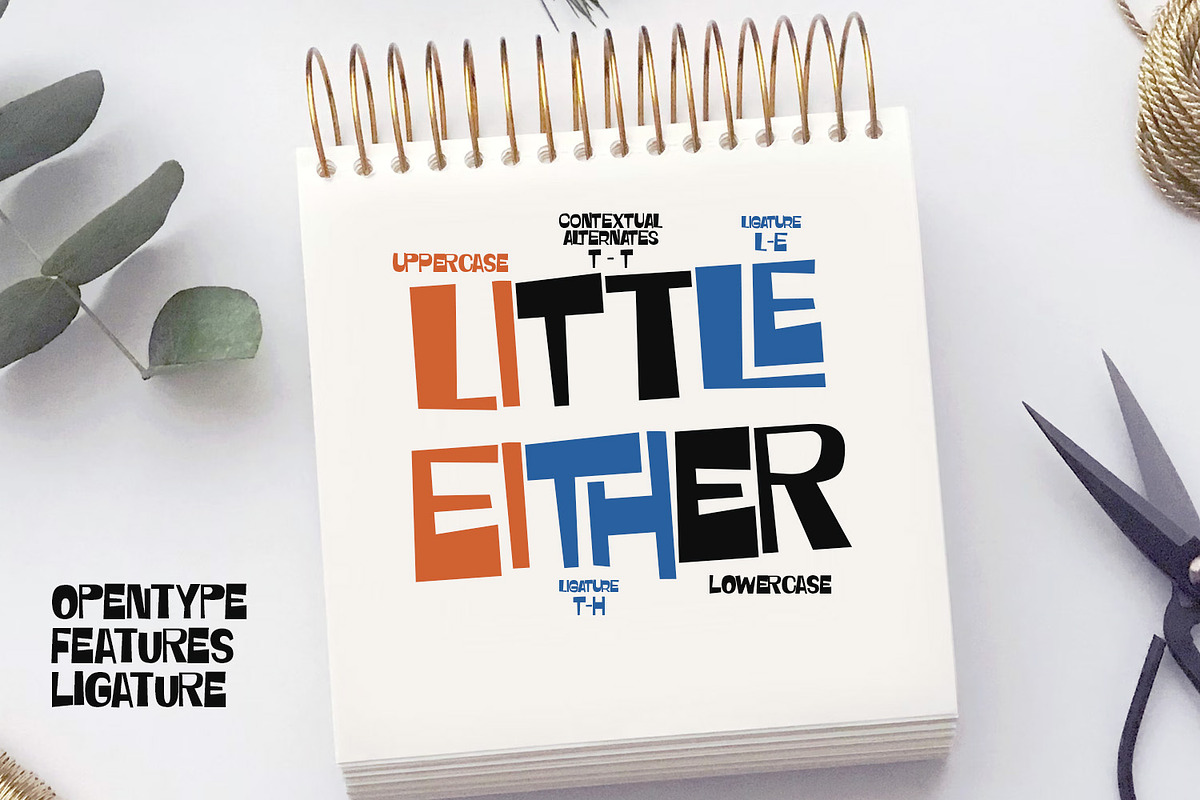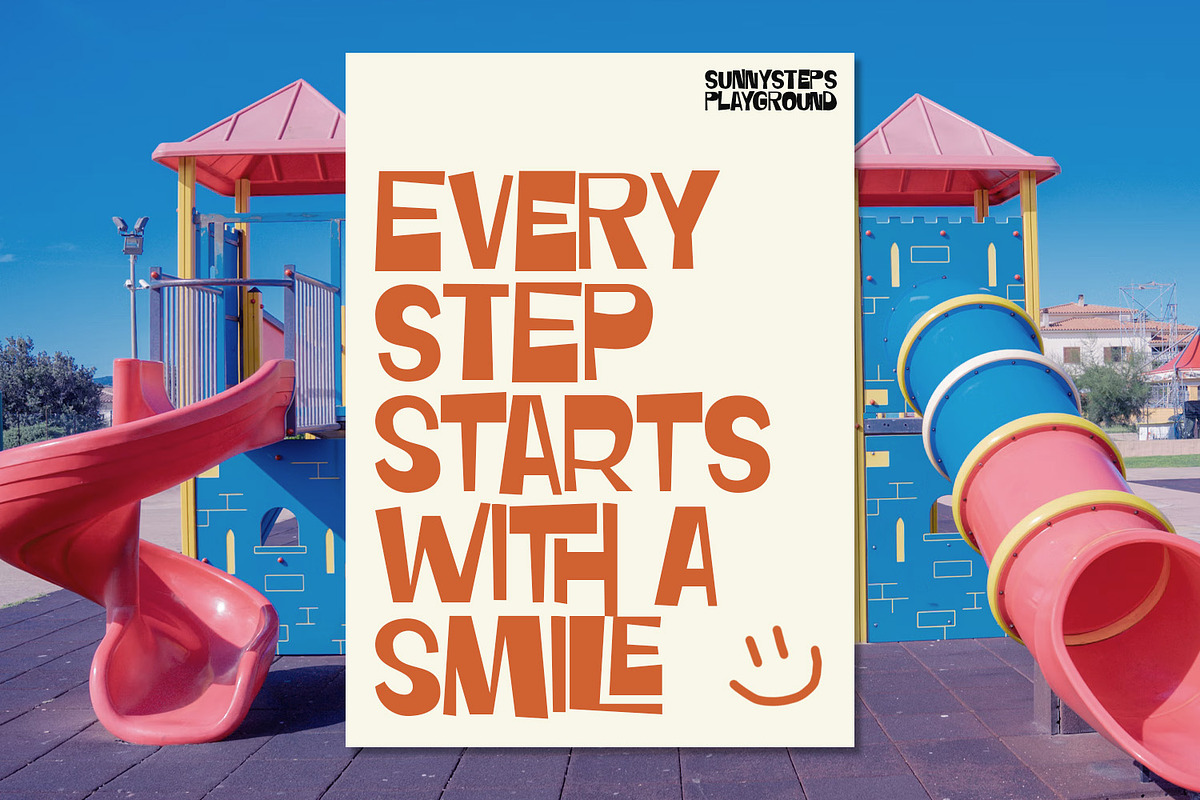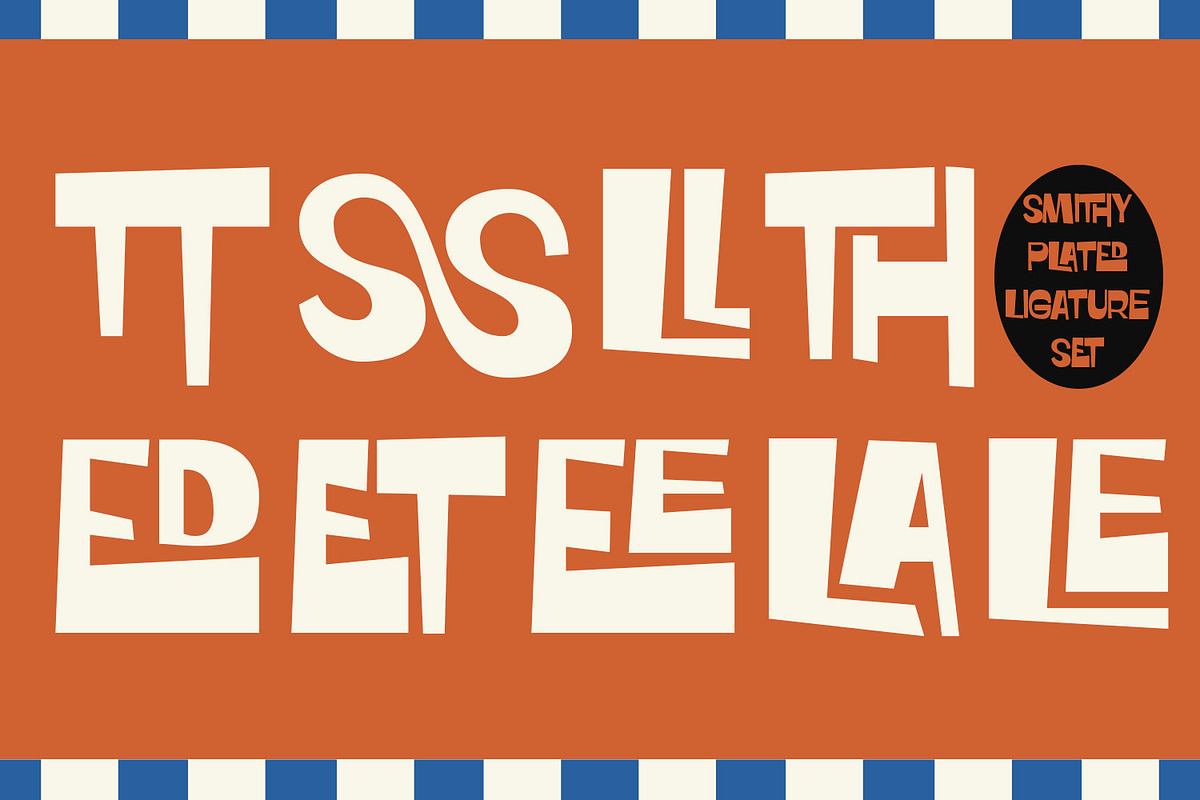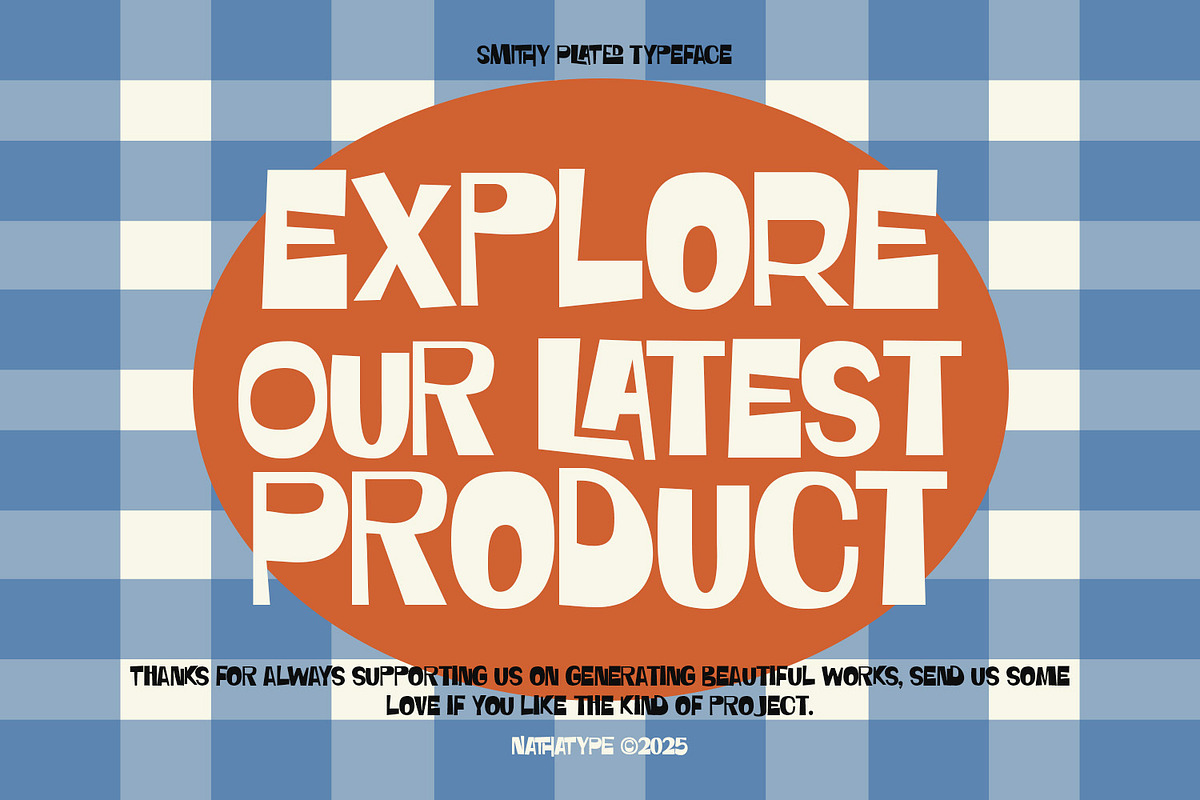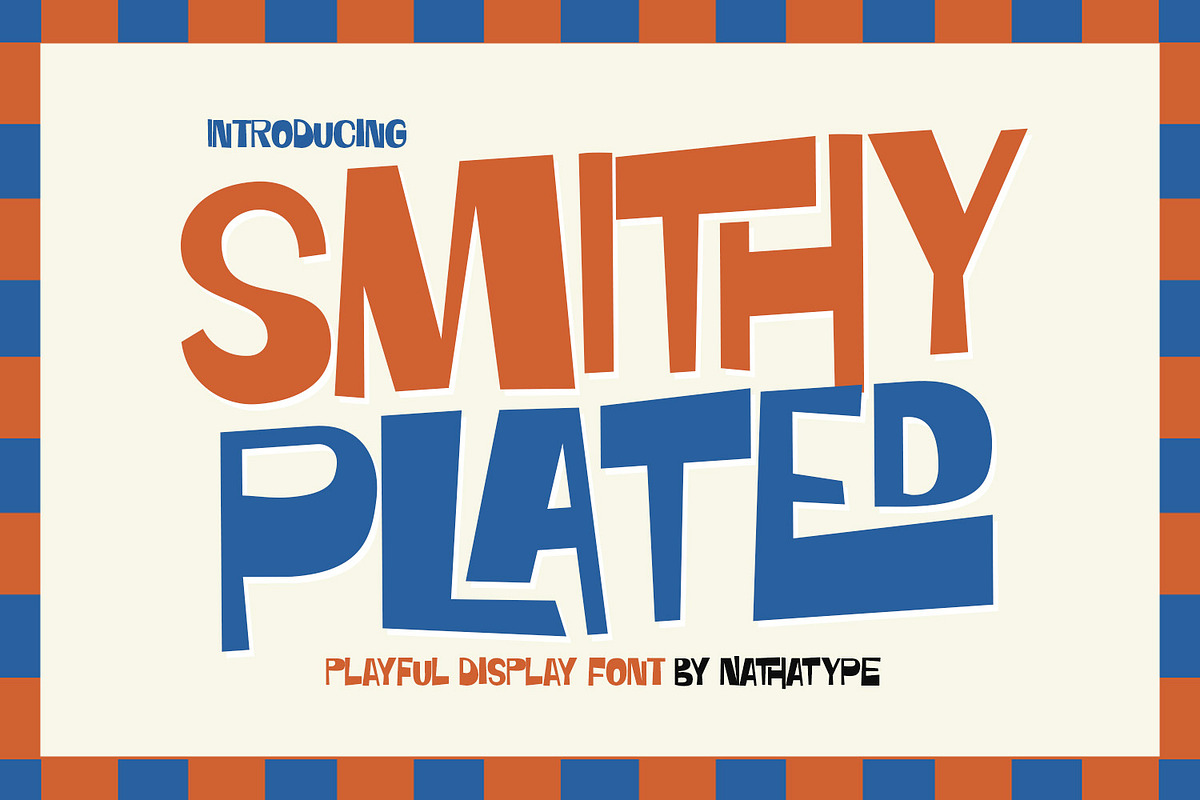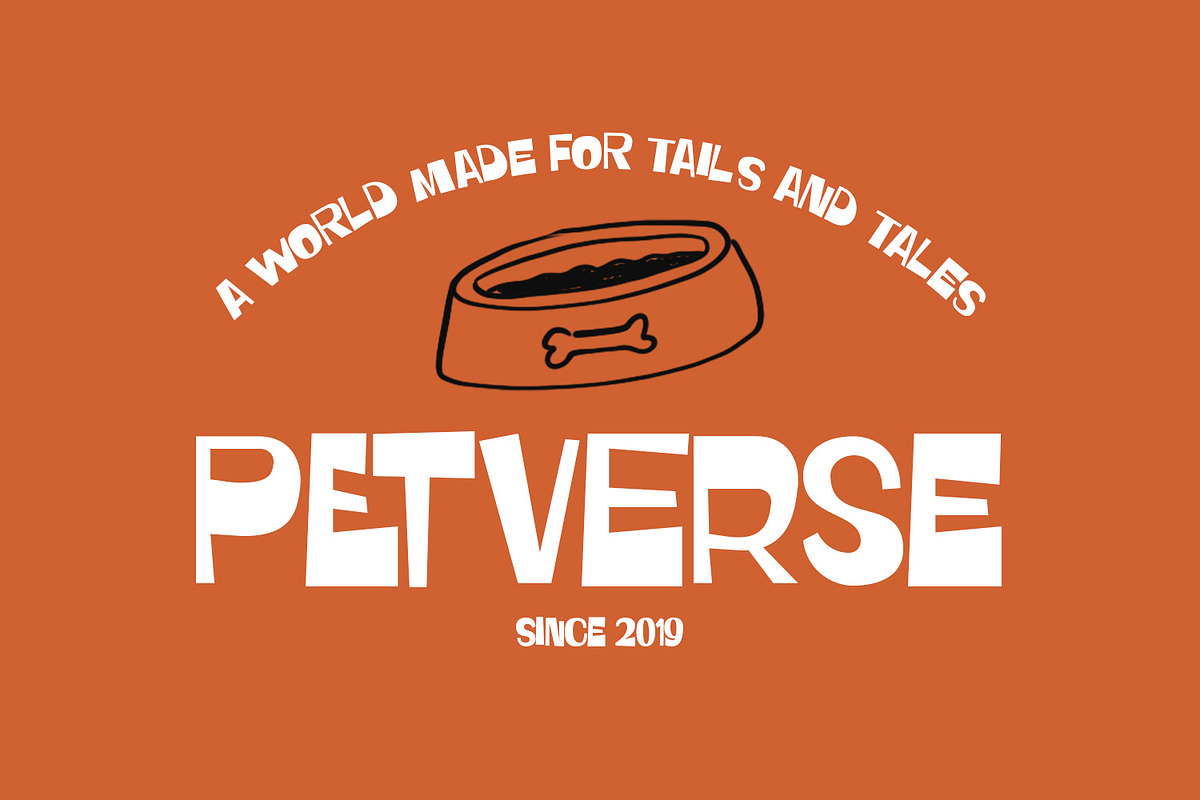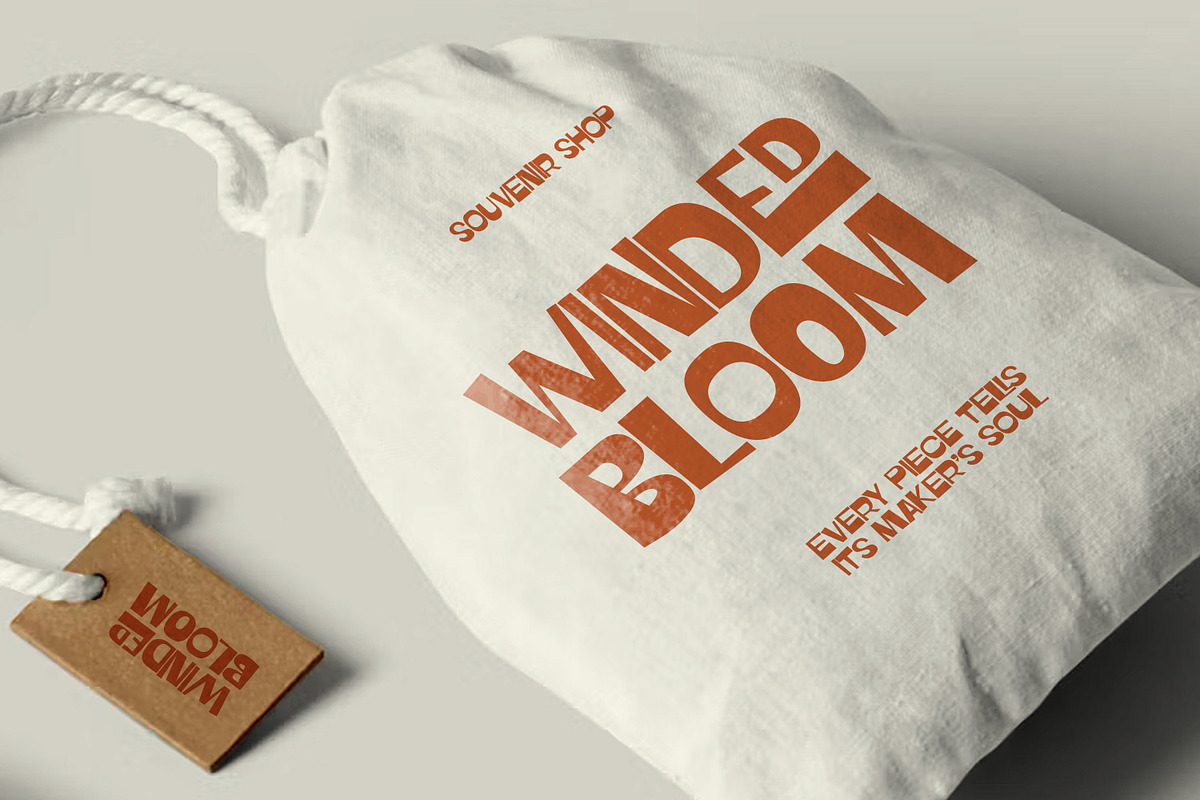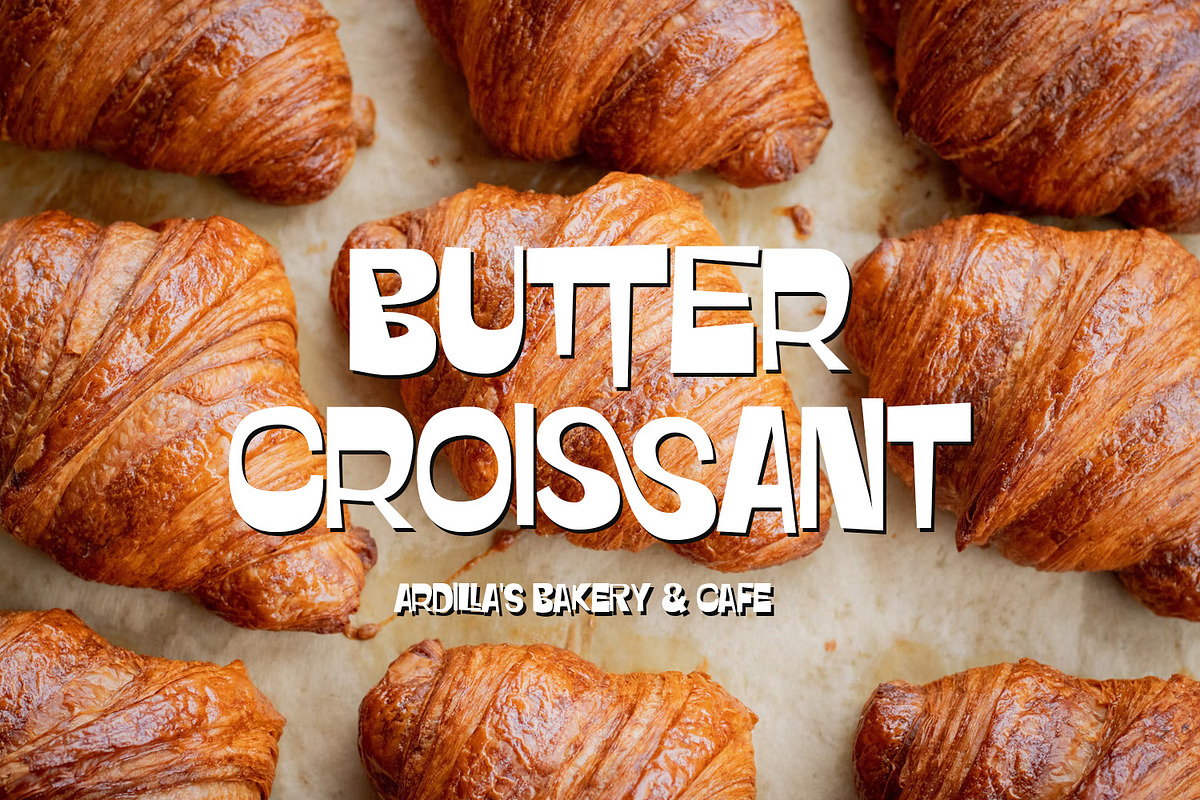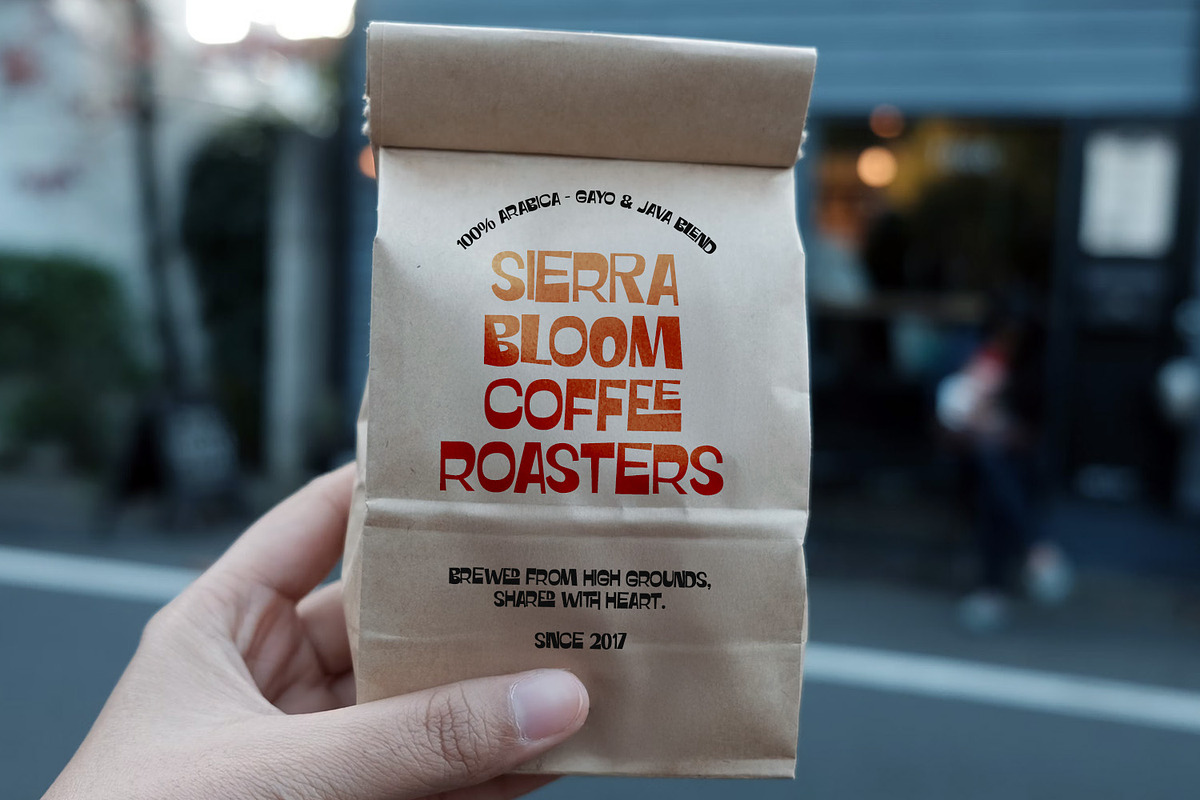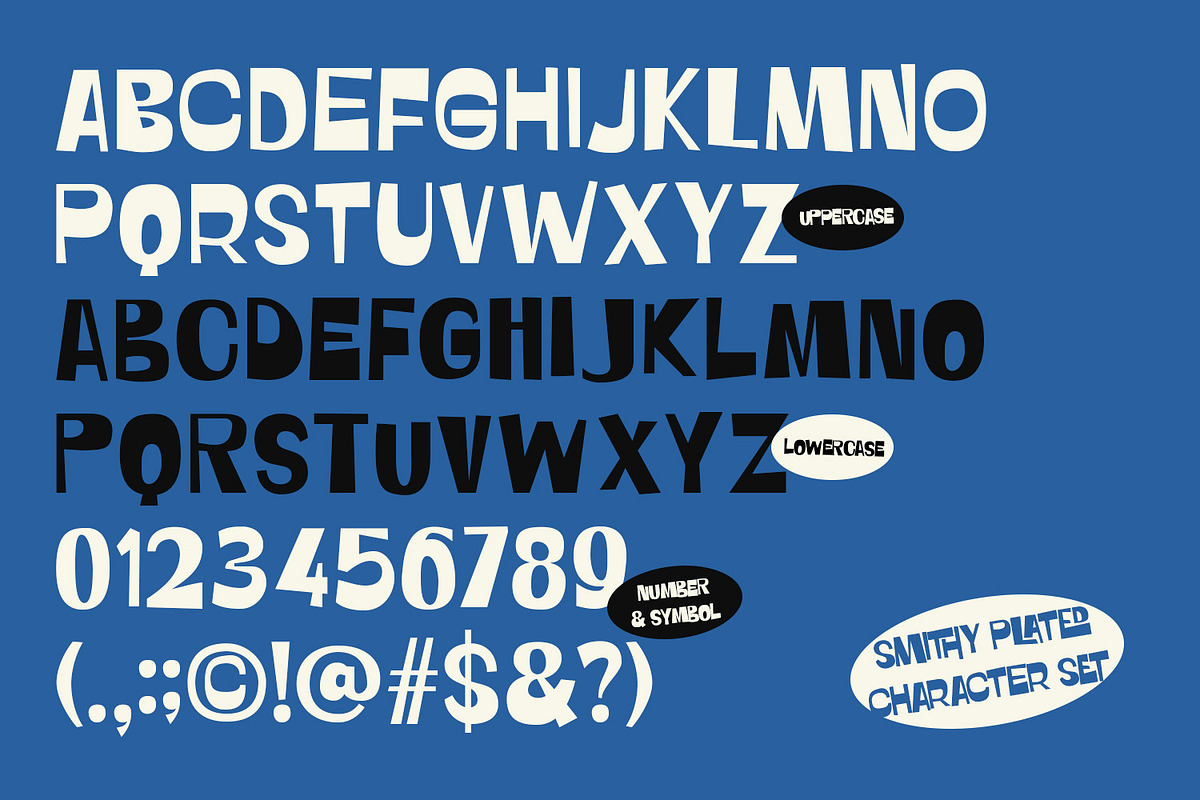
Smithy Plated
Smithy Plated is a bold uppercases display font crafted to deliver strong visual impact with a handcrafted twist. Designed with varying letter weights, this font brings an expressive character to your typography, making every word stand out with confidence and personality. The unique contrast between thick and thinner strokes gives Smithy Plated an artistic and eye-catching look, perfect for designs that demand attention. While its bold structure ensures clarity and readability. In addition, enjoy the features here.
Smithy Plated fits in branding, quotes, apparels, logos, posters, and many more designs. Find out more ways to use this font by taking a look at the font preview.